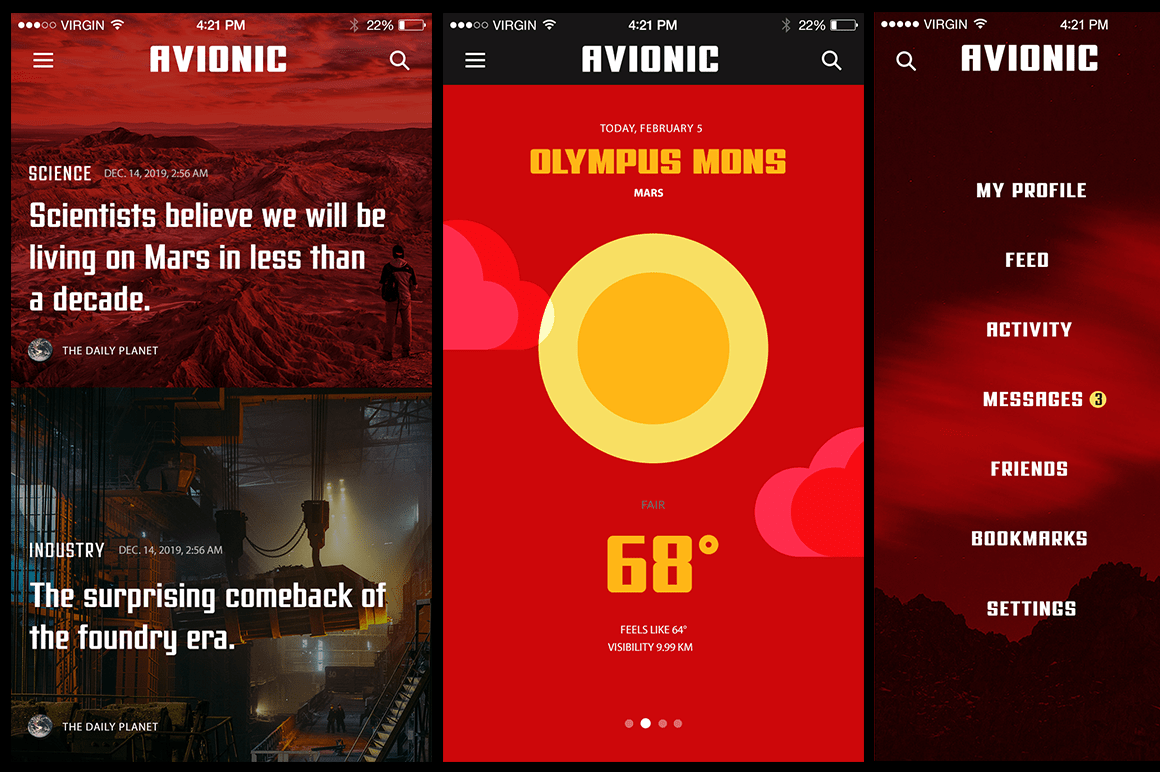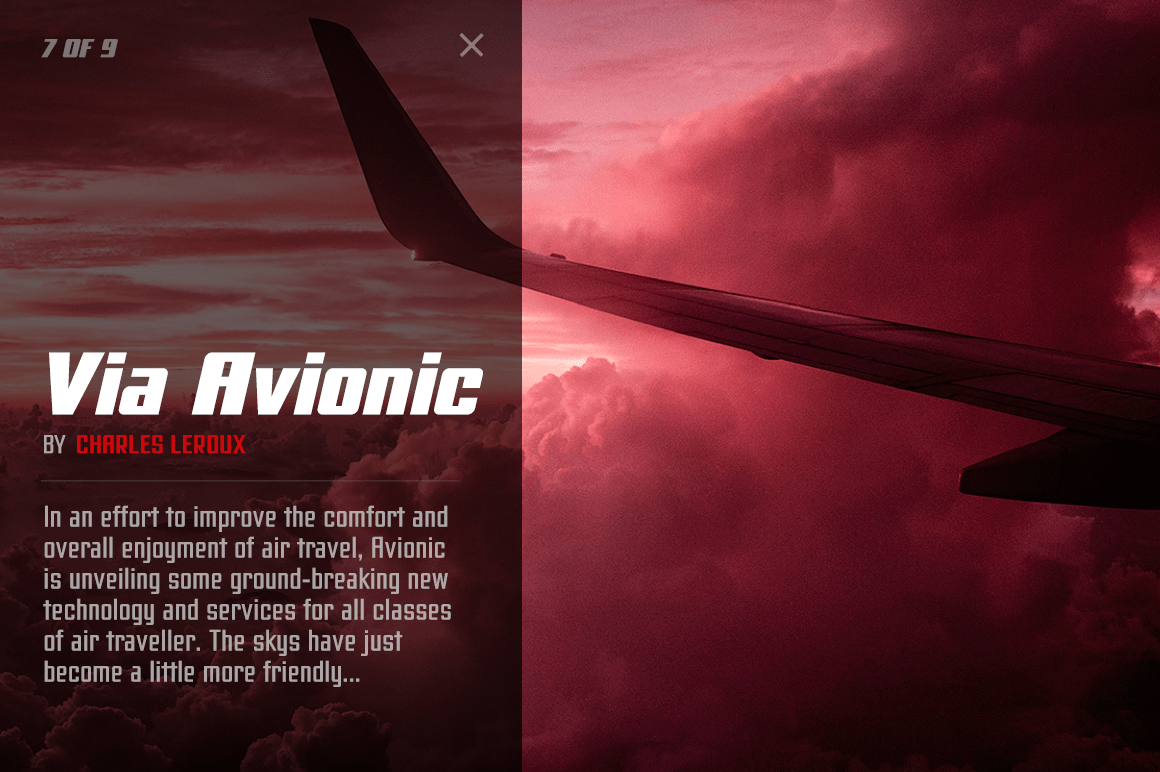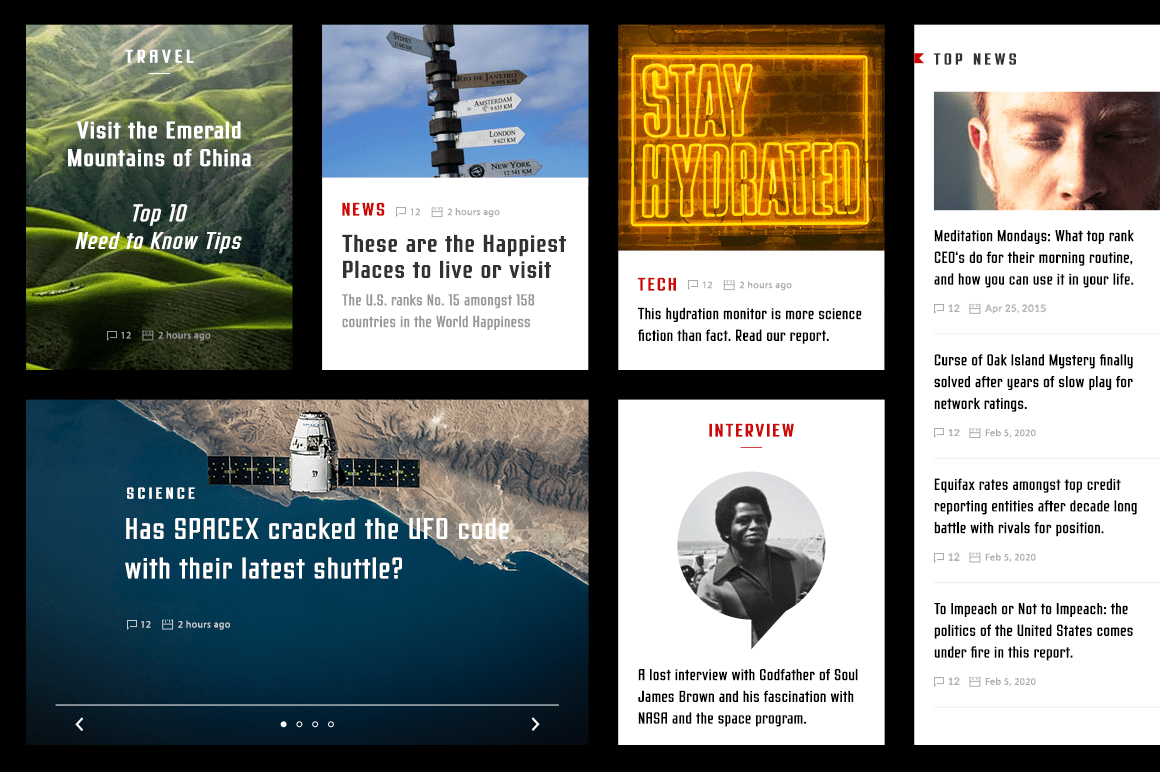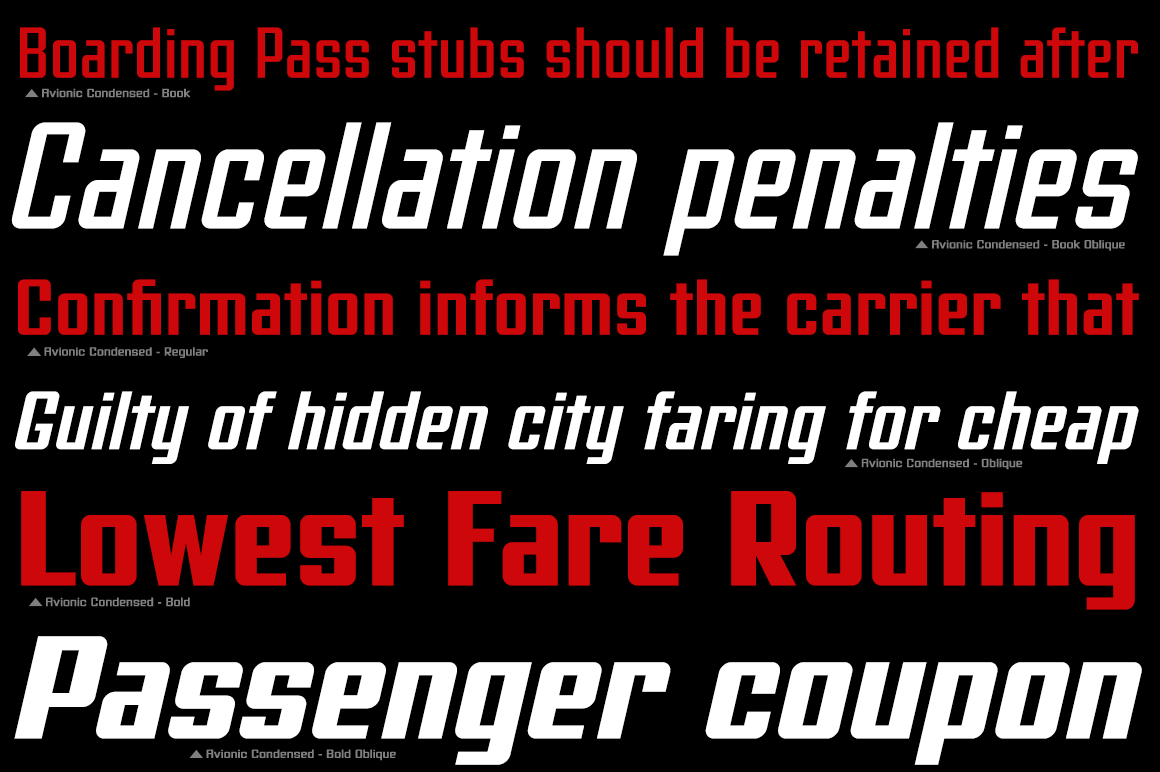
About Avionic Condensed
The aviation world contains loads of stylish logotypes, from handwritten scripts to geometric styles and so on. The Avionic Condensed family of 10 fonts finds its origins of inspiration in the Air China company logotype, and from there has been expanded…